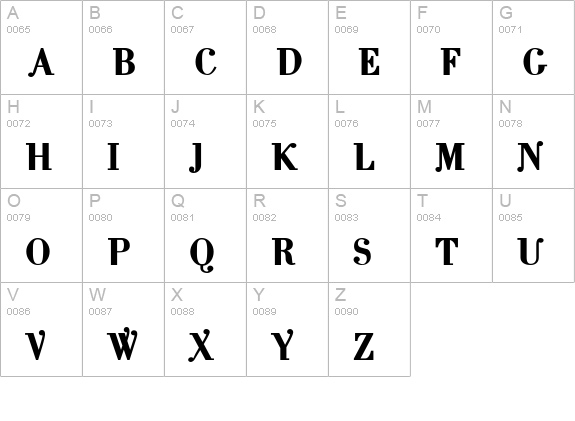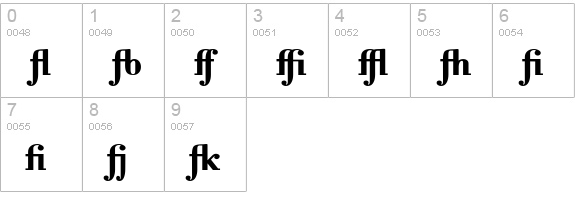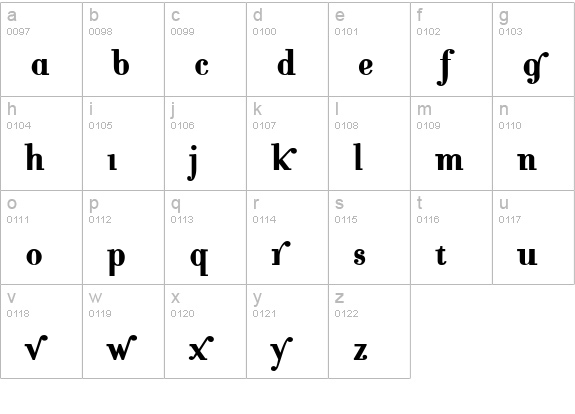
CantabileBoldAlternate Font Details
CantabileBoldAlternate is a striking and elegant font that exudes sophistication and style. With its bold and alternate characters, this font adds a touch of modernity to any design project. The unique letterforms and sharp edges make CantabileBoldAlternate perfect for branding, headlines, and other creative endeavors. The best part? CantabileBoldAlternate is completely free to download at FontsMarket.com. This means that you can easily access this premium font without any cost, making it a valuable addition to your font collection. Don't miss out on the opportunity to elevate your designs with the sleek and contemporary CantabileBoldAlternate font.